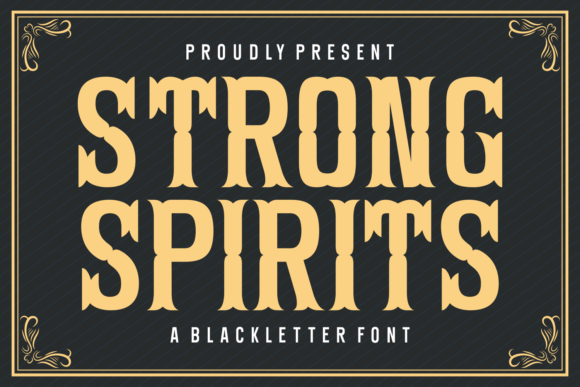
Are you tired of the same old fonts that fail to make an impact? Look no further, because Strong Spirits Font is here to revolutionize your typography projects! This bold and striking blackletter font will captivate your audience and add a touch of vintage charm to your designs.
As a leading font in the blackletter font family, Strong Spirits stands out from the crowd with its thick and eye-catching appearance. Created by the talented team at Creative Fabrica Fonts, this typeface has been carefully crafted to meet the demands of modern design while paying homage to the retro aesthetic.
When it comes to creating retro logos that leave a lasting impression, Strong Spirits Font is your ultimate weapon. Its unique and distinctive style instantly transports your audience back in time, evoking a sense of nostalgia and authenticity. Whether you're designing for a vintage clothing brand, a classic barbershop, or a retro-inspired café, this font will effortlessly capture the essence of the era.
But Strong Spirits Font doesn't stop at logos. Its versatility allows it to shine in various creative projects. From posters and flyers to packaging and branding, this font adds a touch of sophistication and elegance to any design. Imagine your social media posts standing out from the crowd with this captivating font, instantly grabbing the attention of your followers.
What sets Strong Spirits Font apart is its ability to breathe life into your creations. It injects a sense of personality and character that transcends the mundane and elevates your designs to new heights. Each letter has been meticulously designed to create a harmonious flow, ensuring that your text becomes a visual masterpiece.